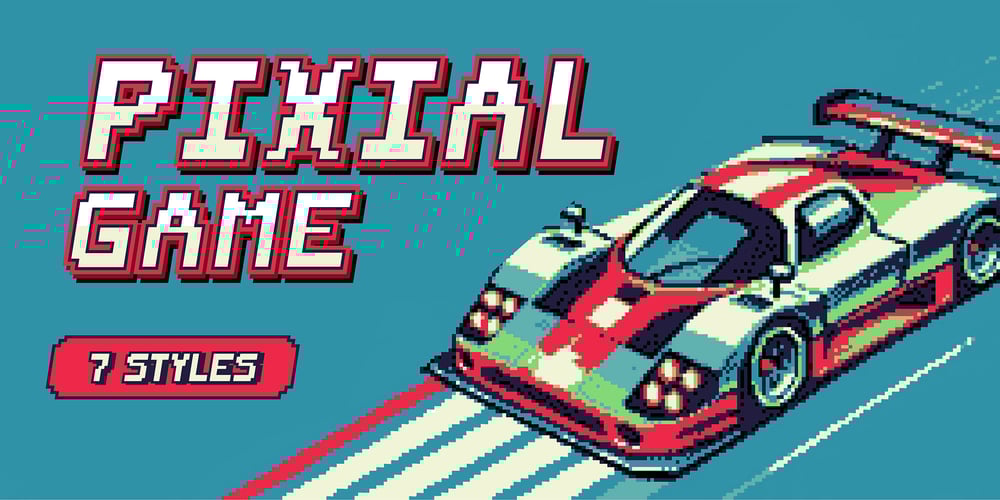
Pixial Game Font Family was designed by Anastasiia Kulchytska and published by Pina Studio. Pixial Game contains 7 styles and family package options. Pixial is a meticulously crafted pixel font, perfect for adding a retro aesthetic to your pixel art games.-Includes 7 Styles- Scalable and readable- Suitable for mobile games- Easily change colours and effects w/o additional pluginsCharacters supported: Latin & Cyrillic Basic*Languages supported: English Ukrainian Russian *As a solo-designer, I commit to expanding the font to Latin-1 Supplement and Latin Extended-A as it gets traction here. All existing buyers will get a free update then